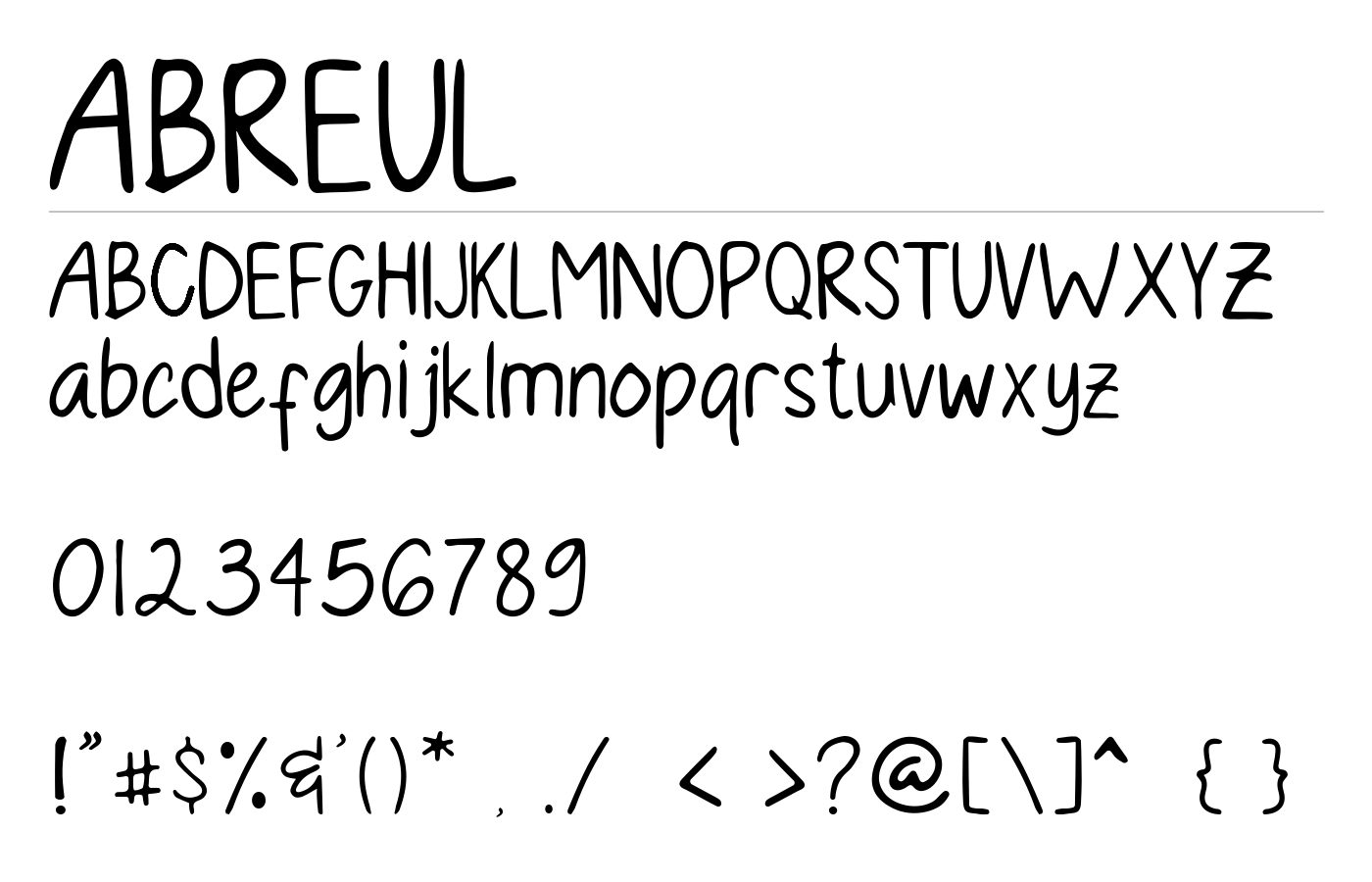
ABREUL is a playful, casual handwritten sans serif font with a light weight and slightly irregular letterforms that give it a friendly, approachable feel. Its moderately tall x-height and simple strokes make it easy to read while maintaining a whimsical, informal personality perfect for creative projects, children’s materials, or personal branding. This font works well in headlines, invitations, and other contexts where a natural, hand-drawn touch adds charm and warmth.
ABREUL Font